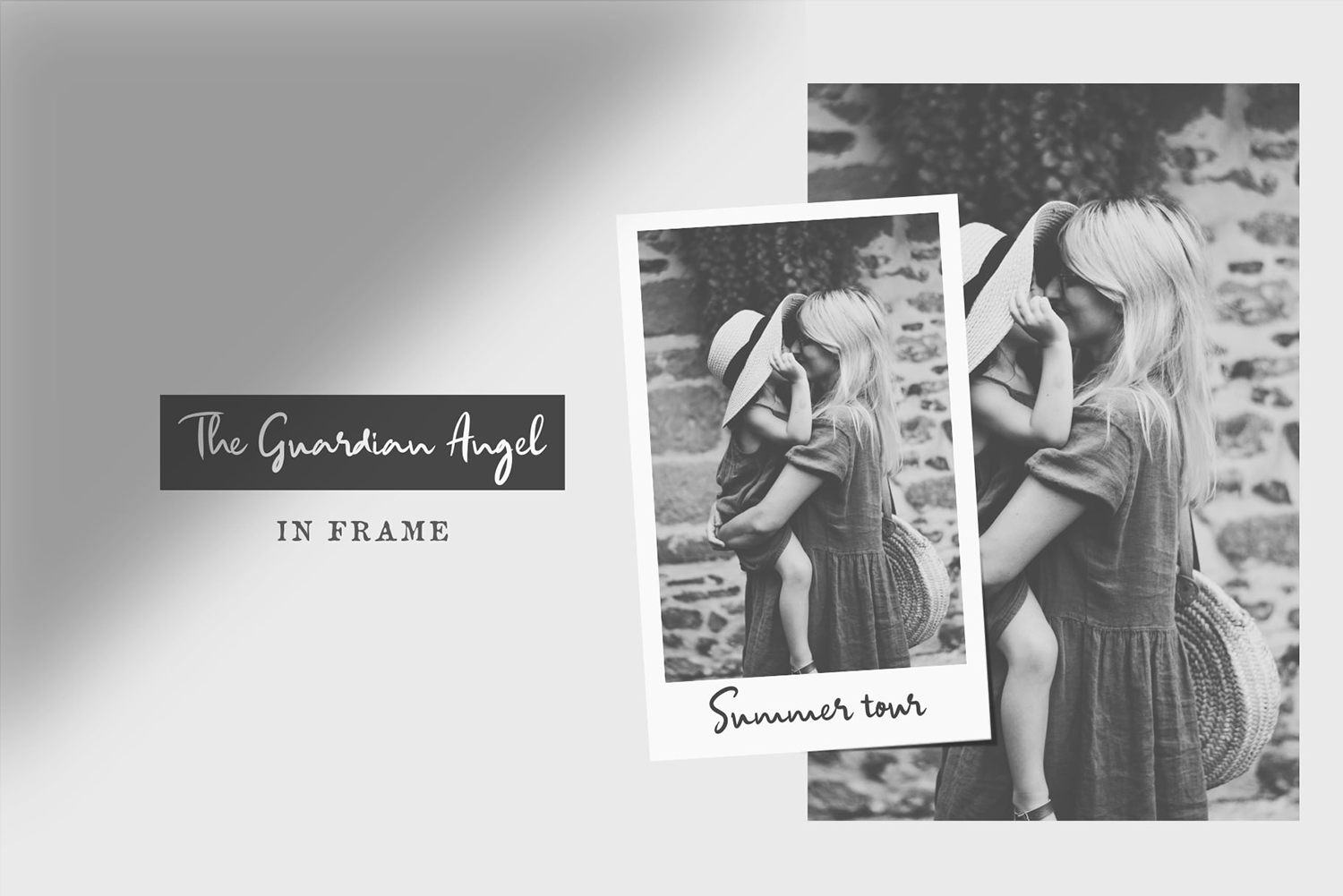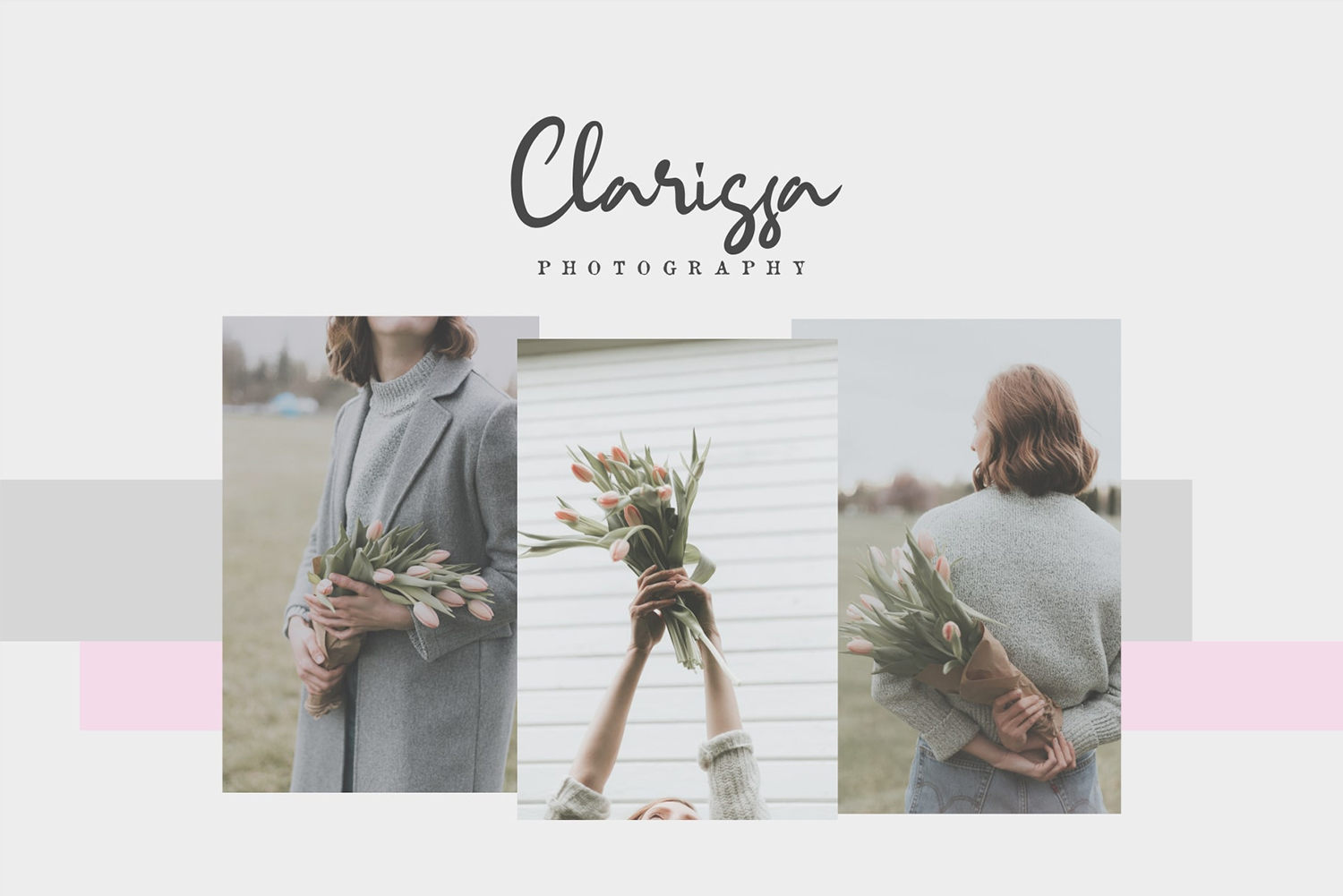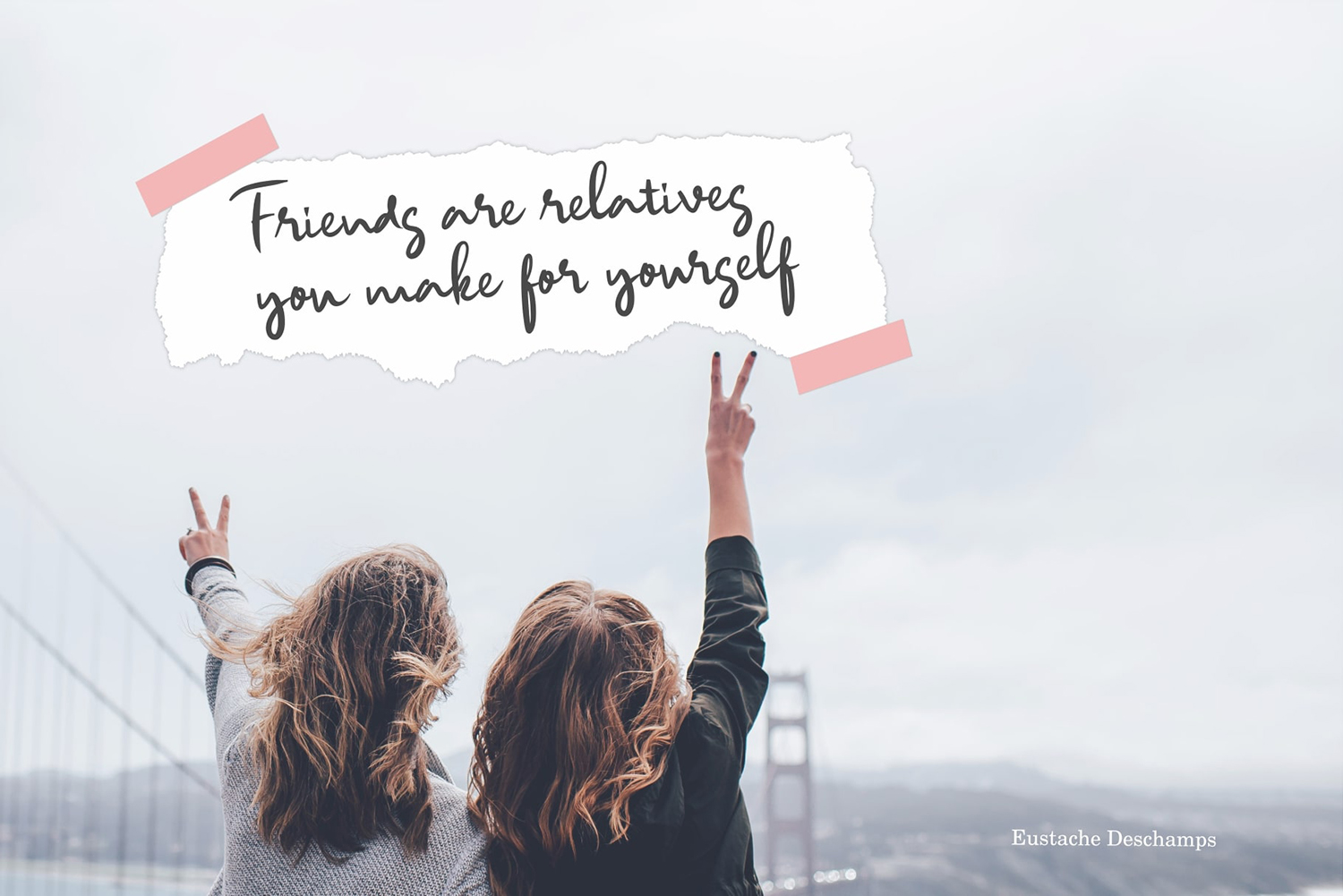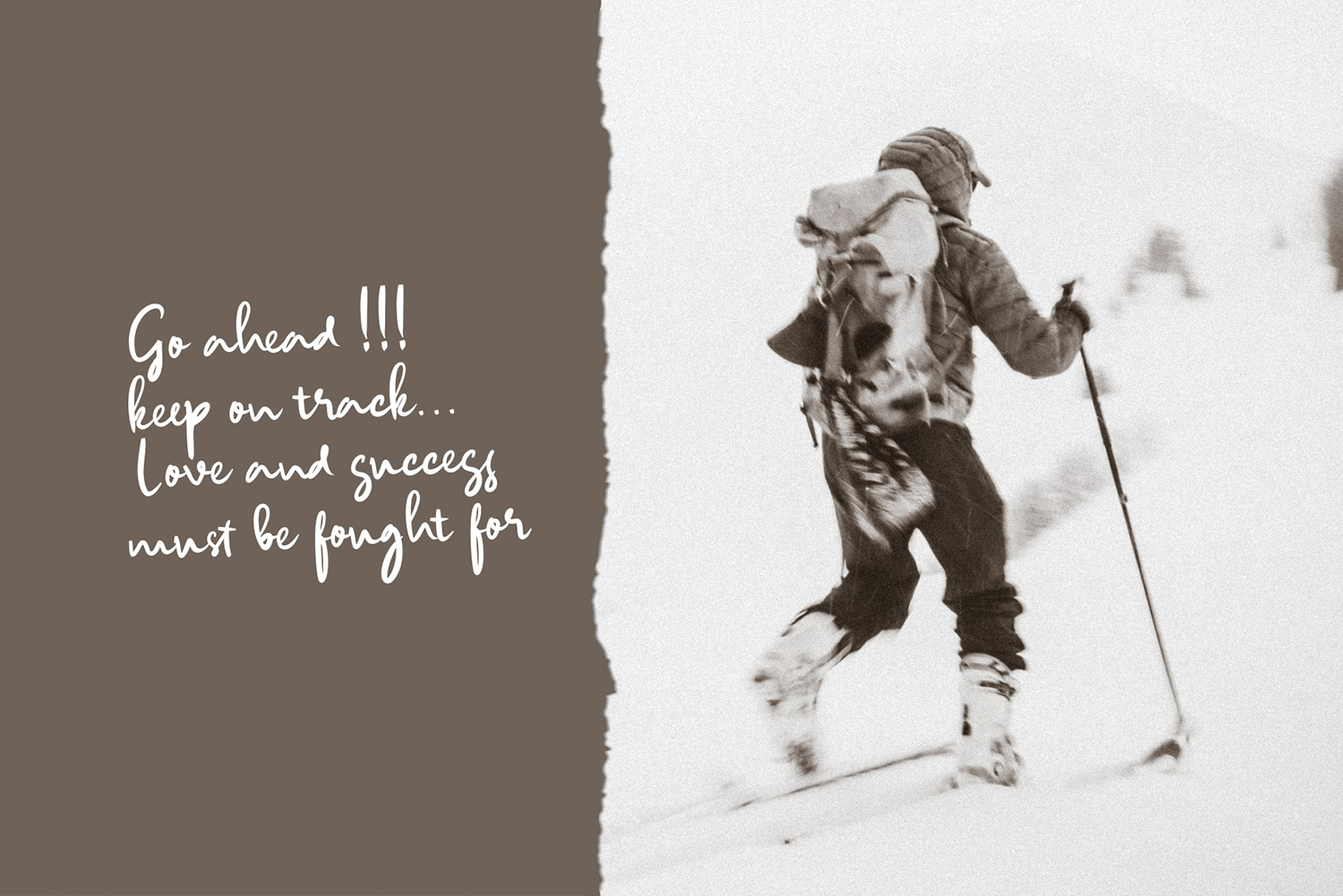
Windmill Free Font
Windmill Free Font made with handwritten style, every shape, and stroke is simple yet but perfect to add to the perfection of your design. Windmill is outstanding and elegant for logotype, subtitle, text information, scrapbooking, biz card, branding, and etc. This free typeface was designed by talented Java Pep. If you like it don’t forget to check out the full version.